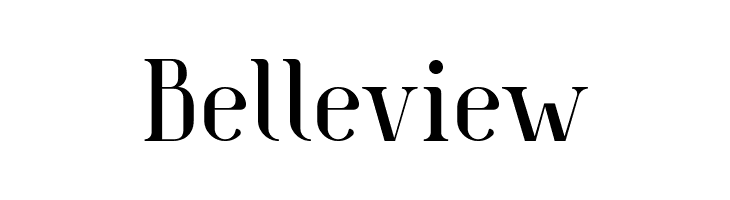
• Belleview फ़ॉन्ट
A modern serif font with elegant, elongated letterforms and prominent serifs.
• Bellevue फ़ॉन्ट
A lively and expressive handwritten font with dynamic strokes.
• BelleWest-Regular फ़ॉन्ट
A refined serif font with elegant lines and subtle curves.
• Belley-Regular फ़ॉन्ट
A lively handwritten font with fluid strokes and a dynamic style.
• Belley-Regular फ़ॉन्ट
An expressive handwritten font with dynamic strokes and a playful aesthetic.
• Belleza फ़ॉन्ट
A refined and elegant font with clean lines and a modern aesthetic.
• Belleza Regular फ़ॉन्ट
An elegant and sophisticated serif font with a blend of classic and modern elements.
• BellfoodsRegular फ़ॉन्ट
A bold, playful font with rounded edges and consistent thickness.
• Bellgia फ़ॉन्ट
An elegant, flowing script font with modern, elongated characters.
• Bellhop NF फ़ॉन्ट
A bold, geometric font with modern, decorative elements and dot patterns.